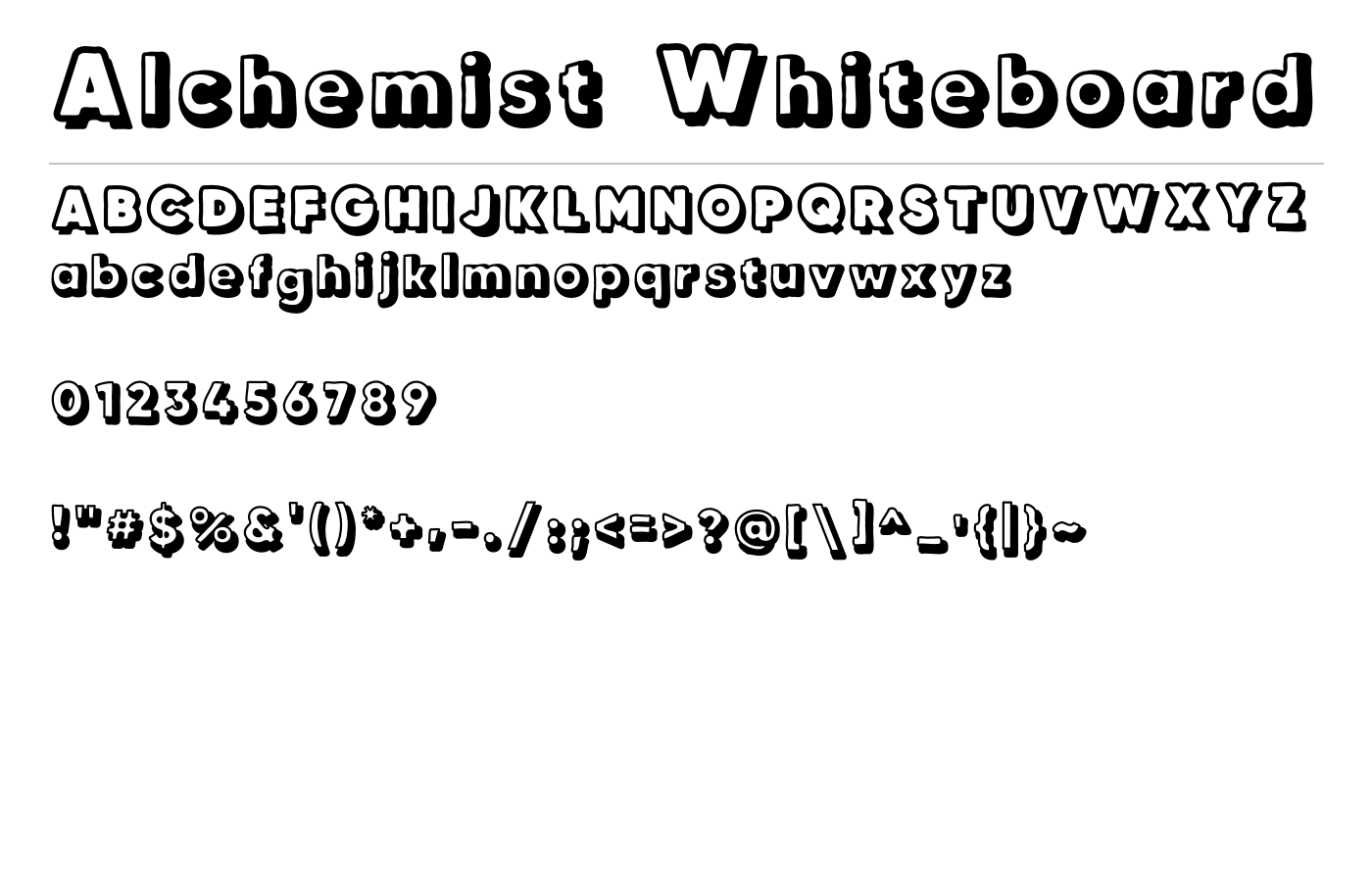
Alchemist Whiteboard Font is a bold and playful sans serif typeface with a chunky, hand-drawn feel reminiscent of whiteboard marker lettering. Its rounded, slightly irregular letterforms and strong outline create a fun, casual vibe ideal for creative projects, youthful branding, and attention-grabbing headlines. This font works well where a friendly, informal look is desired, such as in posters, educational materials, and packaging aimed at a young or imaginative audience.
Alchemist Whiteboard Font